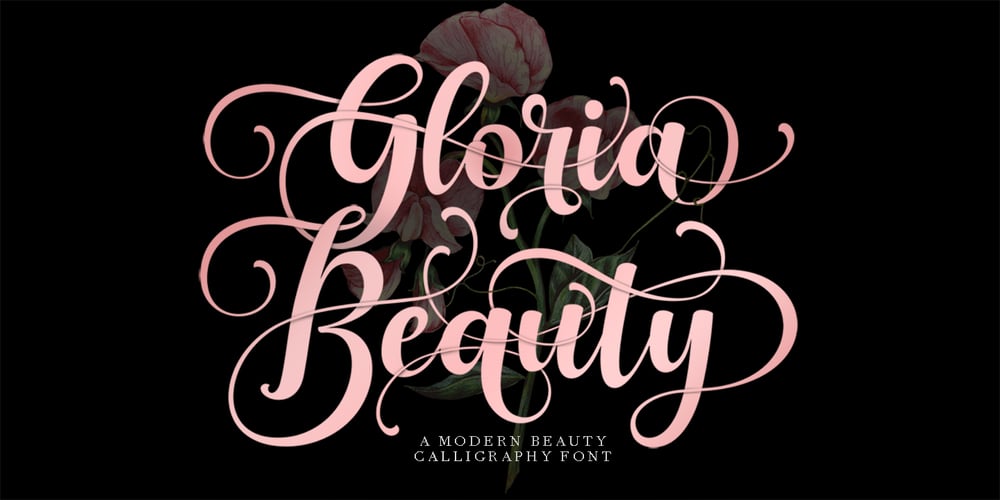
Gloria Beauty
Gloria Beauty font
Gloria Beauty Font Family was designed by Samsul Kamal and published by Lettersams. Gloria Beauty contains 1 styles and family package options. Gloria Beauty is a script with a new idea that has letter characters connected to each other, so it looks unique and romantic with others. This font has beautiful, well-balanced characters, making it suitable for a variety of purposes. such as posters, wedding invitations, logos, branding, titles, signs, labels, mugs, quotes, and others.Gloria Beauty features 620+ glyphs covering characters, alternatives, and binders, including start and end letters, alternates, binders, and multiple language support.